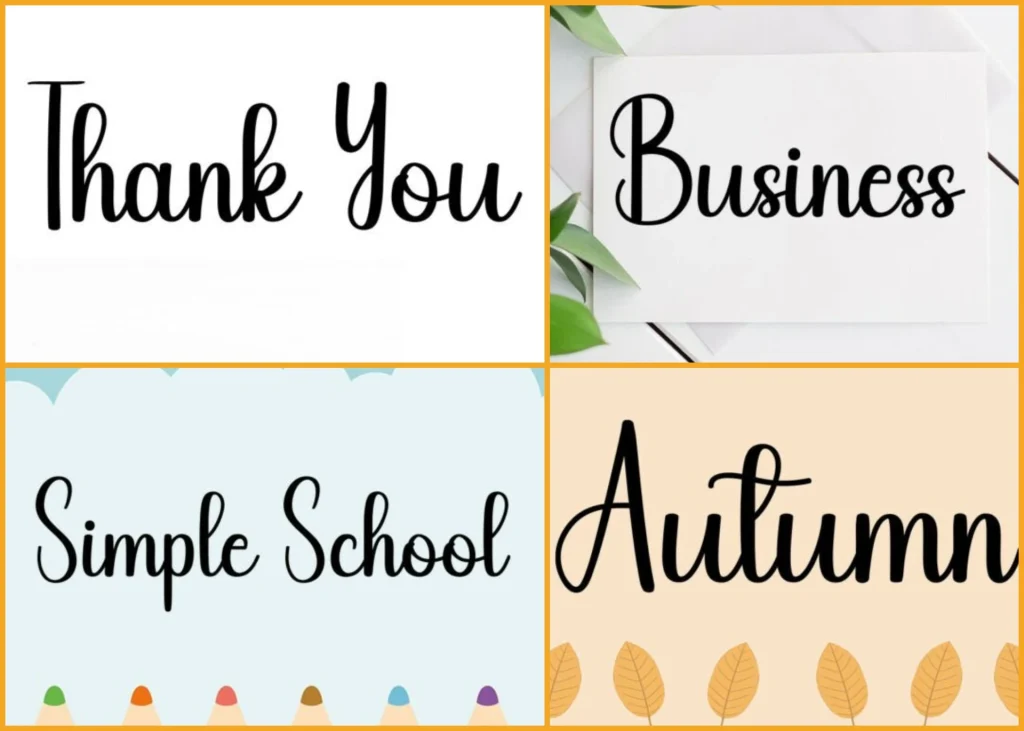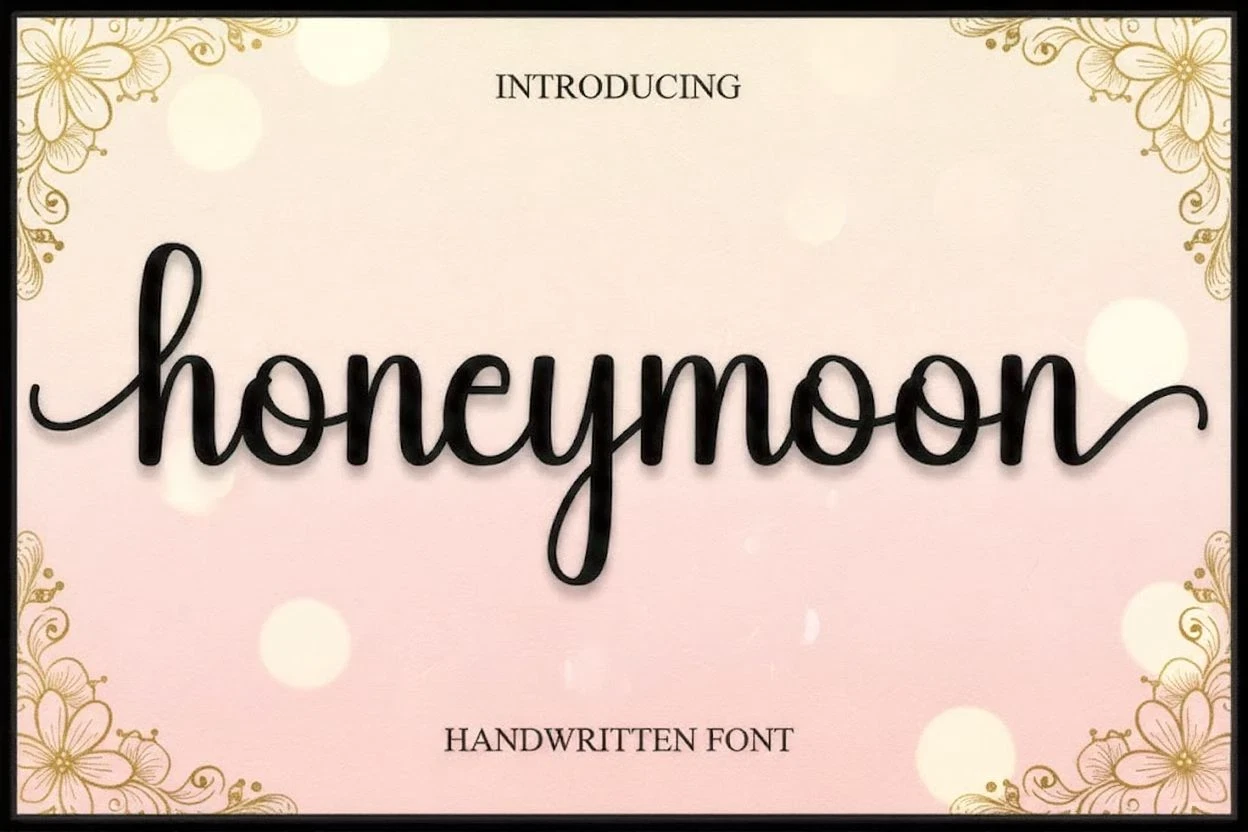
Honeymoon is a sweet, handwritten font that brings a sense of love, joy, and class. Its smooth curves and soft style make it great for romantic stuff, like wedding invites, logos, social media content, and fashion branding.
It nicely balances casual writing with fancy calligraphy, giving a personal feel to anything you write. Whether you’re designing for print or online, Honeymoon Font adds a warm, classy touch that will make your work memorable.